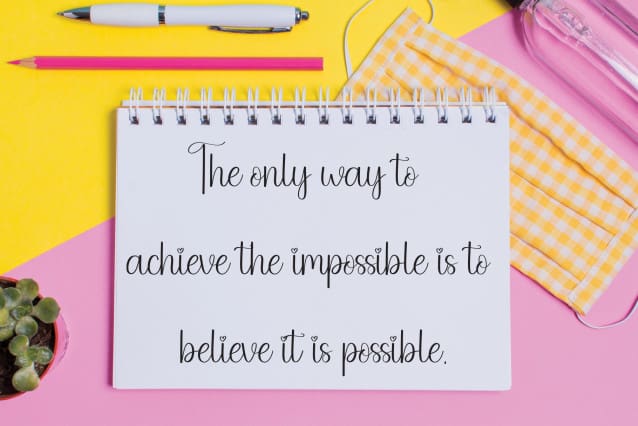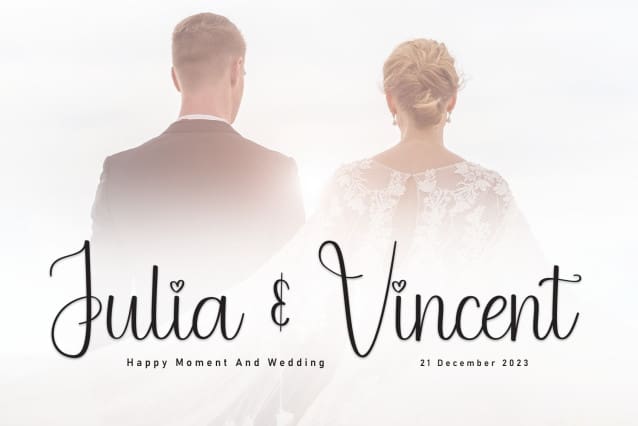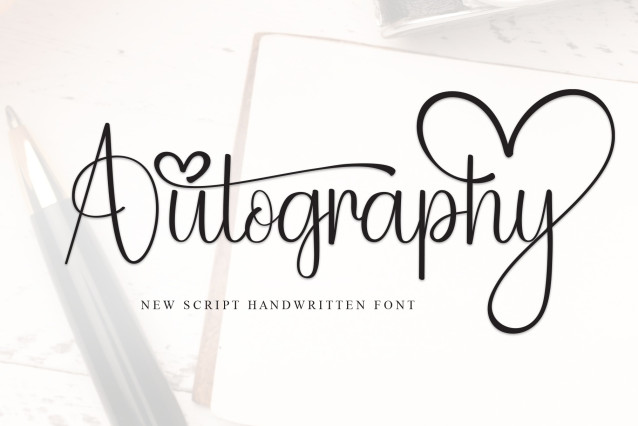
Autography – Moder Script Font
Autography – Moder Script Font a handcrafted font with a cursive flair. Its whimsical and sweet nature radiates warmly from every stroke, promising to infuse your design concepts with a joyful and romantic vibe. Deviate from the norm with Autography, and let it transform your projects into visually stunning masterpieces. Its delicate design is aesthetically pleasing and is sure to elevate your creative endeavours to unprecedented heights. Employ Autography, and watch it effortlessly weave charm and sophistication into your work.